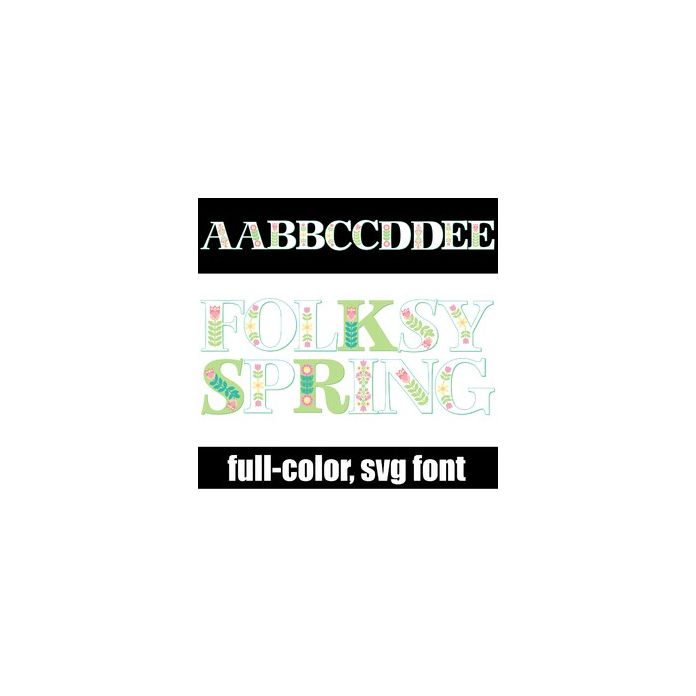
Folksy Spring Color Font
This full-color font features a Scandinavian style floral on each letter. There is an alt version you can access through your system's character map that contains additional colors of all the letters. This font works best for titles, displays, posters and more. Please note color fonts will show as black in non compatible programs. This font type is compatible with Silhouette Studio.